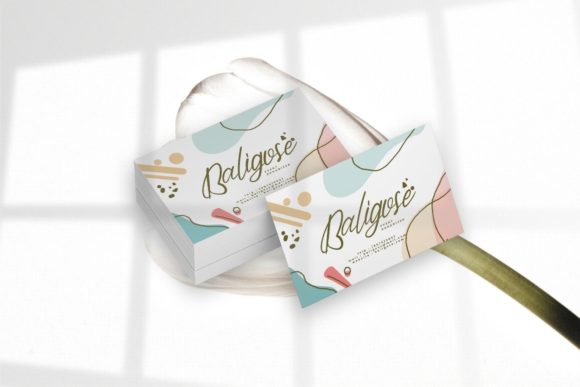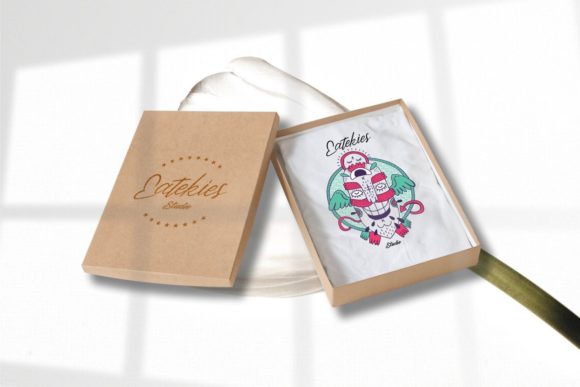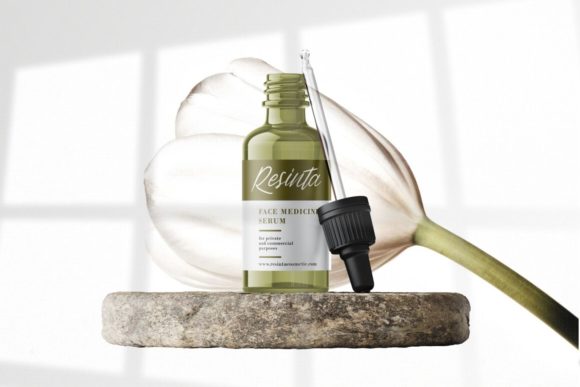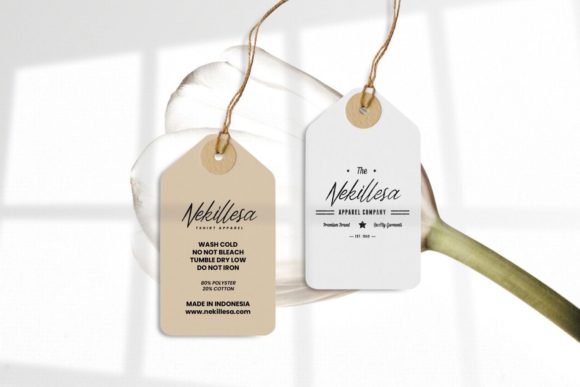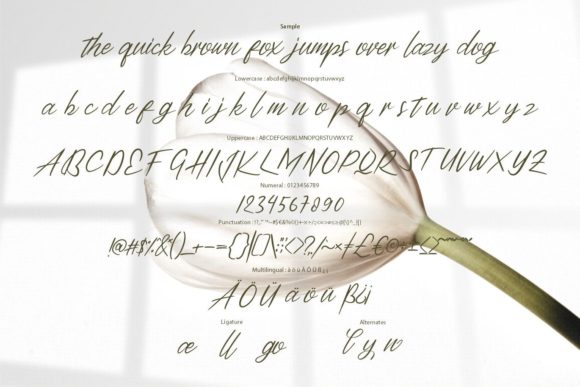
Introduction to Halsyin Font
As a designer, have you ever been stuck on the perfect font for your creative project, only to find yourself scrolling through endless options, none of which quite capture the essence you’re looking for? You envision a beautiful, handwritten logo that will elevate your brand and make it stand out from the crowd. That’s where the Halsyin Font comes in – a delicate and stylish handwritten font that’s sure to bring your design to life.
With its unique and beautiful touch, the Halsyin Font is the perfect choice for creating eye-catching logos, branding, and quotes. Whether you’re working on a high-end project or a simple design, this font is a valuable resource that will help you achieve the desired look and feel. And the best part? It’s available for free download, making it an accessible and high-quality design resource for designers of all levels.
So why settle for a generic font when you can add a touch of elegance and sophistication to your design with the Halsyin Font? Whether you’re working with a transparent background or a bold, colorful scheme, this font is sure to shine and leave a lasting impression on your audience.
Key Features of Halsyin Font
- High-quality design resource for creative projects, suitable for various applications such as logos, branding, and typography.
- Includes a range of font styles, including bold, italic, and regular, to cater to different design needs.
- Features a transparent background, allowing for seamless integration with any design element or image.
- Designed to be versatile and easy to use, making it an excellent addition to any designer’s toolkit.
Honest Review: Halsyin Font
I recently had the chance to work with the Halsyin Font, and I must say it’s been a pleasant experience. As a designer, I’m always on the lookout for high-quality design resources to elevate my creative projects.
One of the standout features of the Halsyin Font is its clean and modern design, which works well for a variety of projects, from logos to typography-heavy designs. The font’s transparent background also makes it easy to use on top of different backgrounds.
- Clean and modern aesthetic that’s versatile and easy to use
- No bold or italic variations available
Overall, I’m impressed with the Halsyin Font. While it may have some limitations, its high-quality design and versatility make it a valuable addition to any designer’s toolkit.
Tips for Getting the Most Out of Halsyin Font
To get the most out of Halsyin Font, experiment with different font sizes, colors, and styles. You can also combine Halsyin Font with other design elements, such as graphics and images, to create unique and eye-catching designs.
Common Use Cases for Halsyin Font
Halsyin Font is commonly used in creative projects, such as logos, graphics, and typography-based designs. It is also used in presentations, reports, and other documents where a high-quality font is required.
Yes, Halsyin Font supports transparent backgrounds, allowing you to create high-quality designs with a seamless look. This feature is particularly useful for designs that require a subtle or minimalist aesthetic.